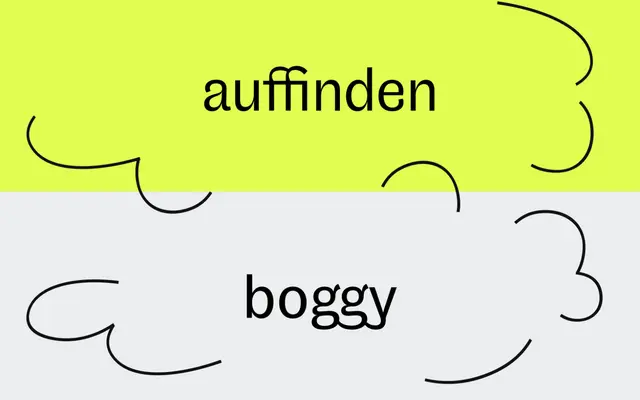
Nouveau Grande
A display-grade grotesque drawing on Art Nouveau hand-lettering traditions, with high-contrast strokes, swashes and whiplash ornaments designed for headline use.
Nouveau Grande is the high-contrast display companion to Nouveau Grotesque, sharing the same Art Nouveau-inflected grotesque foundation but adding pronounced stroke contrast, calligraphic swashes and ornamental forms suited to titles and branding. Twelve styles run across six weights from Light to Black, each with true italics, and the font ships with 29 OpenType features including swash alternates, ornaments, ligatures and small caps. Originally drawn as a corporate font in 2017, it was completely redrawn and expanded with this display variant.
Rooted in early Grotesque letterforms, Nouveau Grande layers Art Nouveau calligraphic details, swashes and high contrast onto a sans-serif structure, placing it firmly in the grotesque tradition with decorative display characteristics.